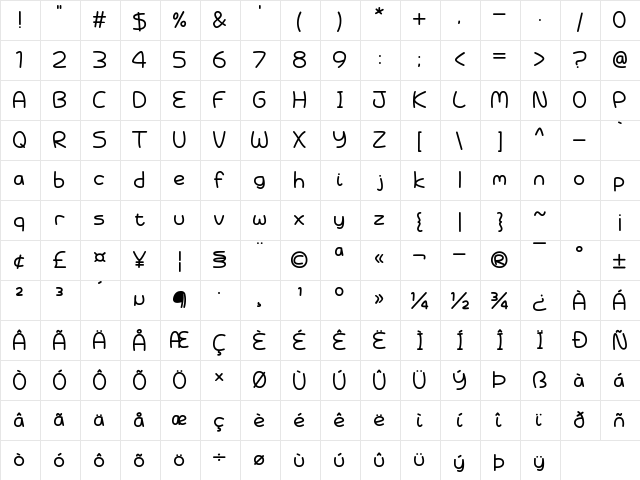
Battenberg and Custard Regular
Design Context for Battenberg and Custard Typeface
Battenberg and Custard is a composed and adaptable typeface that performs quietly and consistently across a wide range of design contexts.